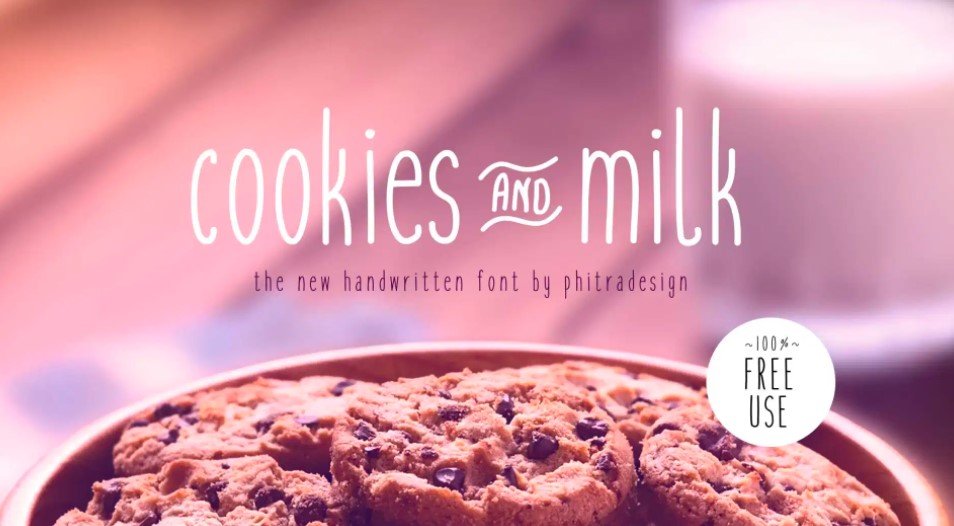
It supports multilingual and having large numbers of unique character designs which are hundred percent for free. You can easily create readable designs and
Hello graphic designers, we are presenting the most unique and cool typeface which looks perfectly natural handwritten typeface that is Cookie and Milk Font which is a great font for all kinds of works.
It supports multilingual and having large numbers of unique character designs which are hundred percent for free. You can easily create readable designs and paragraphs for your clients and customers.
This is a perfectly good-looking typeface that contains the best ratings on google and the creative market. There are lots of fans of this great designing texture.